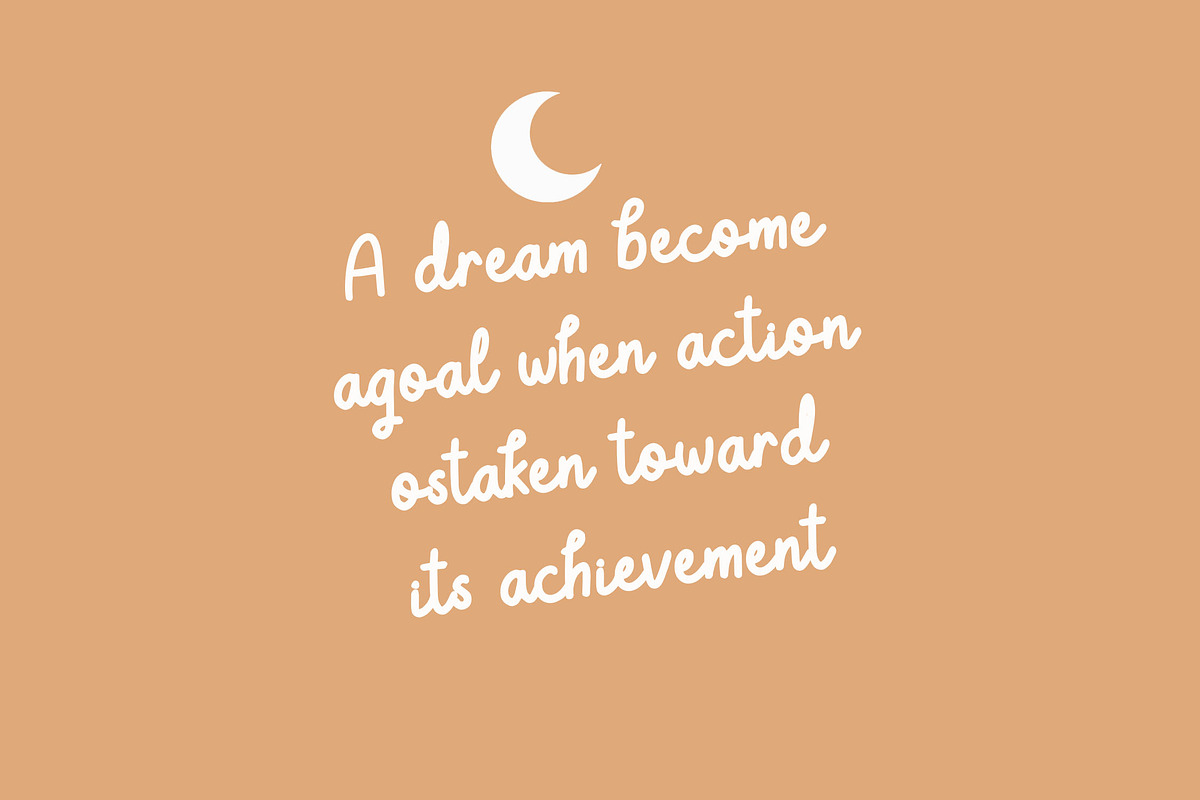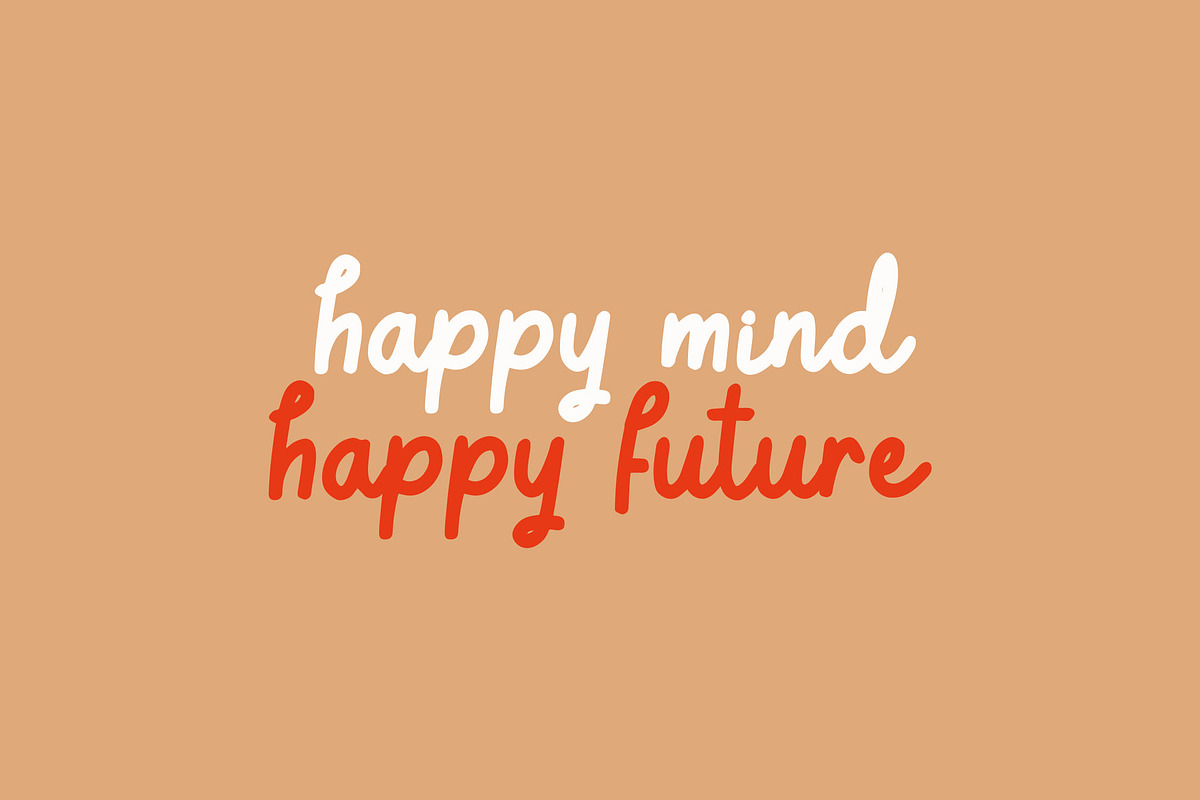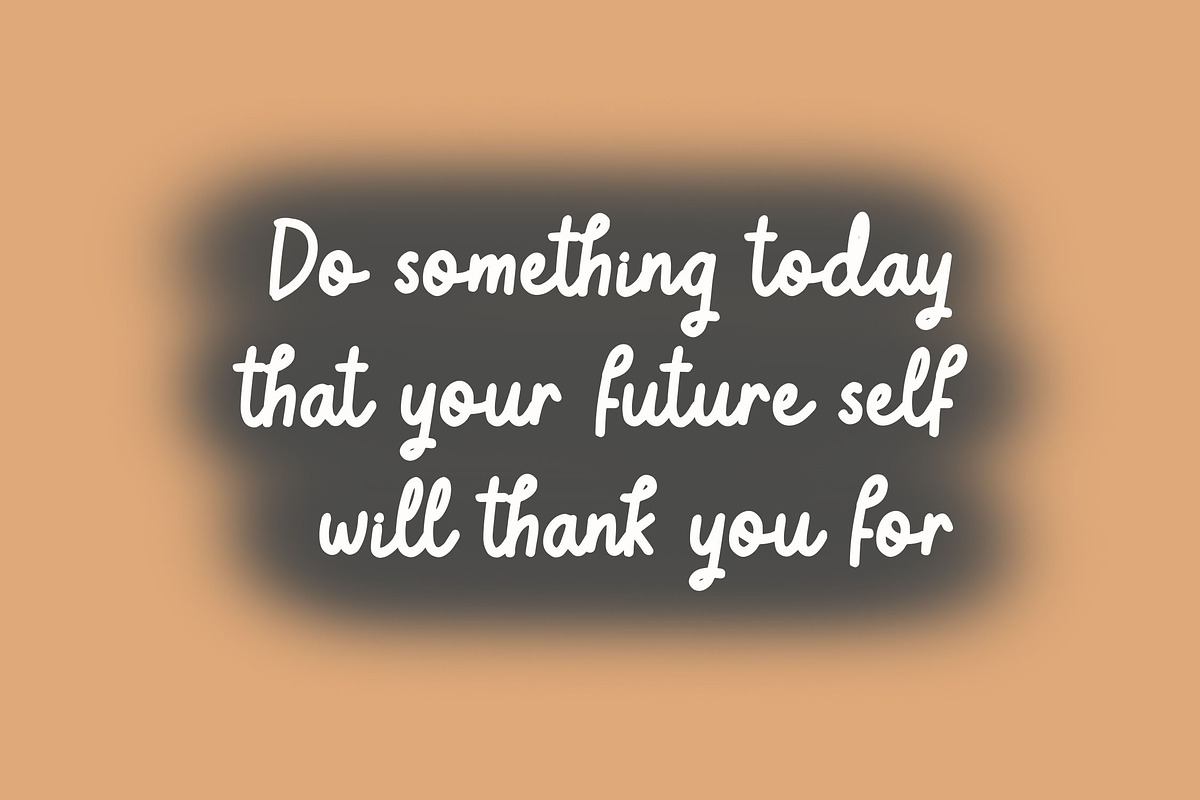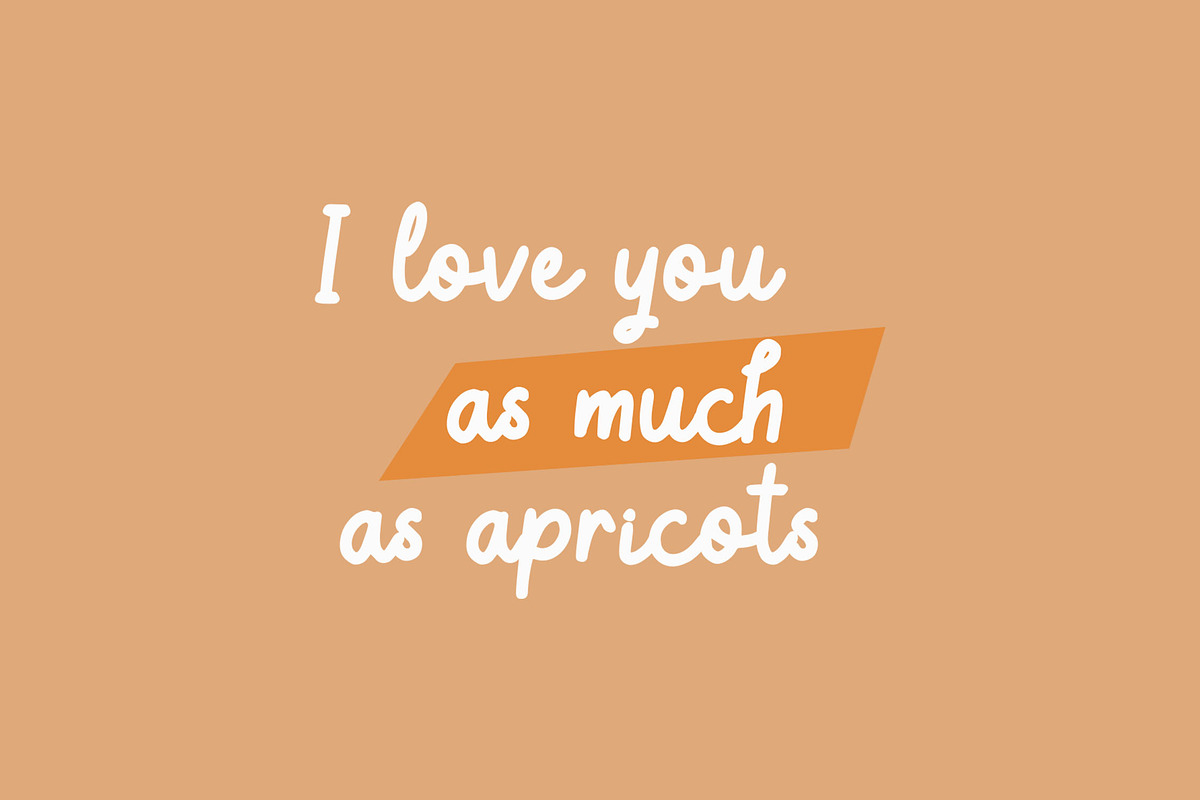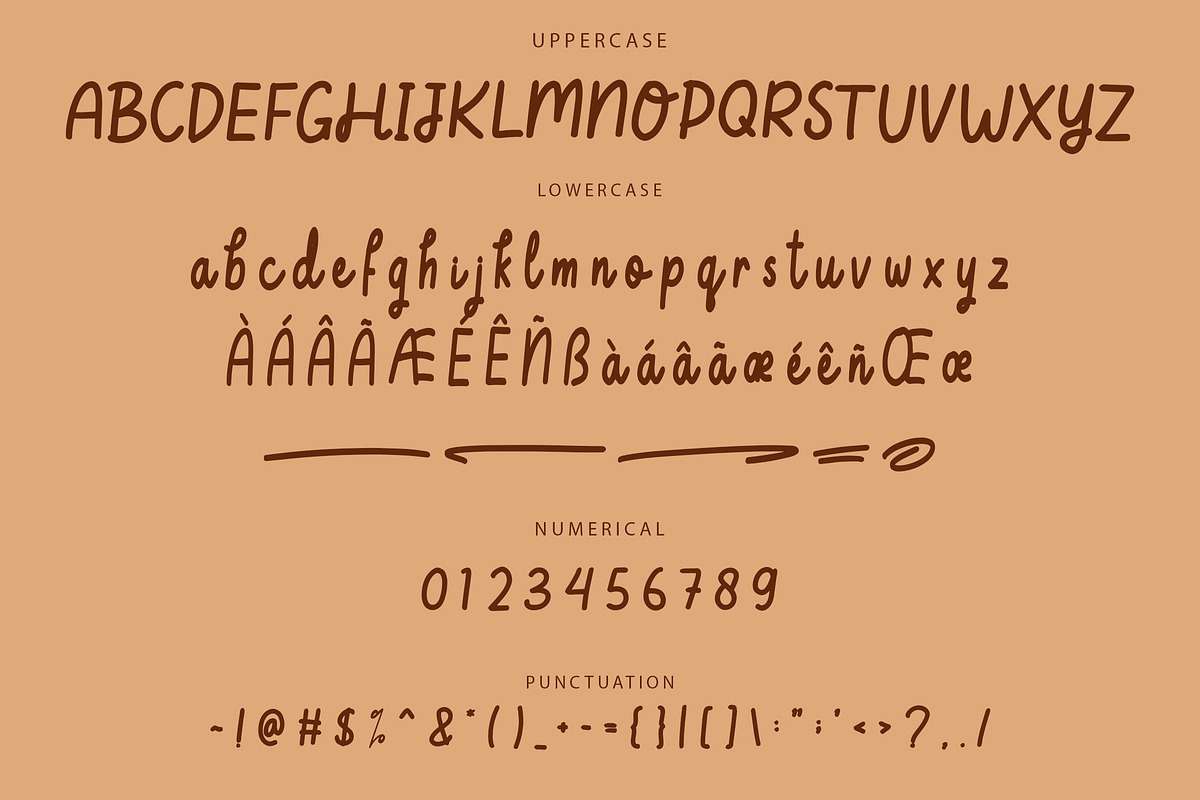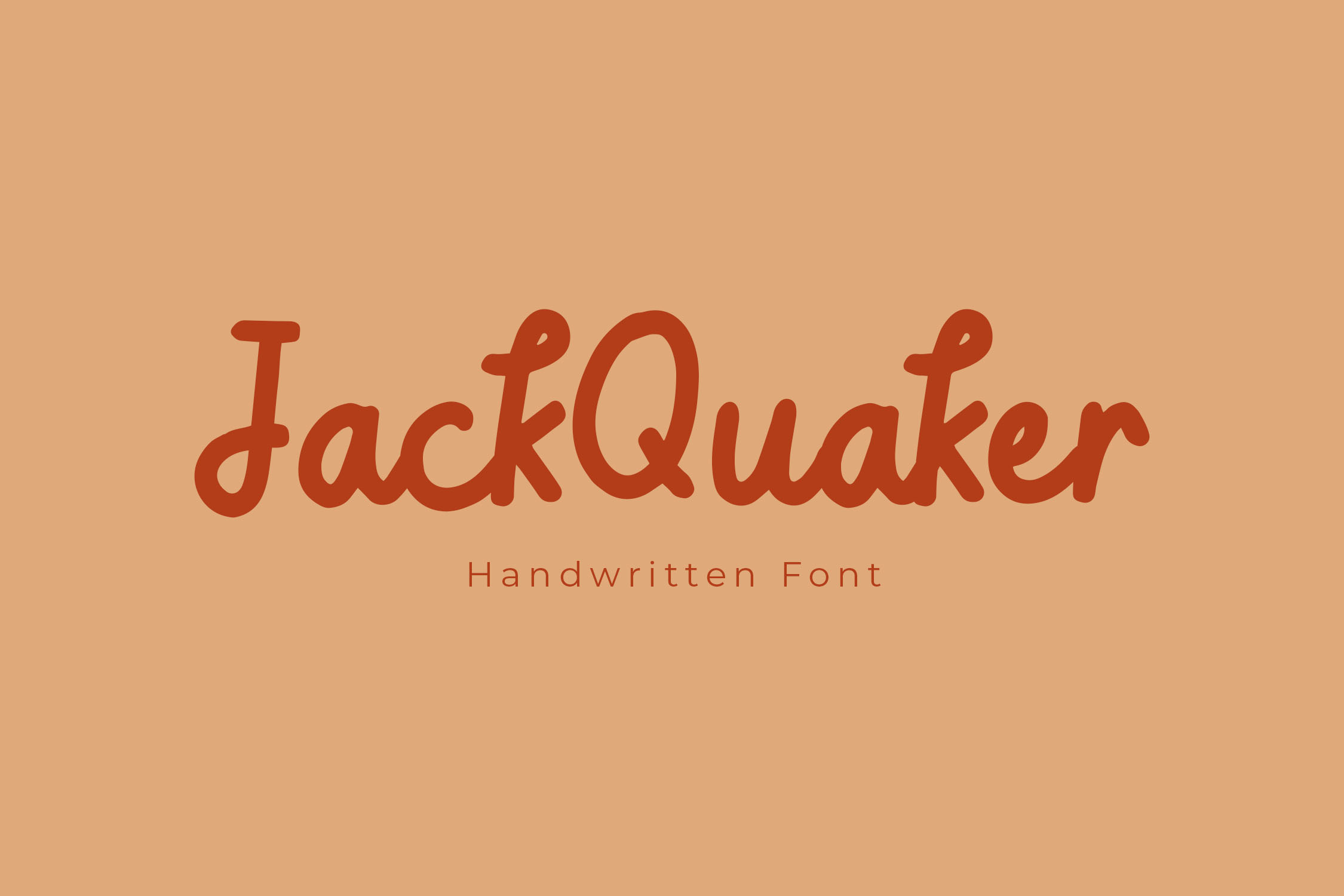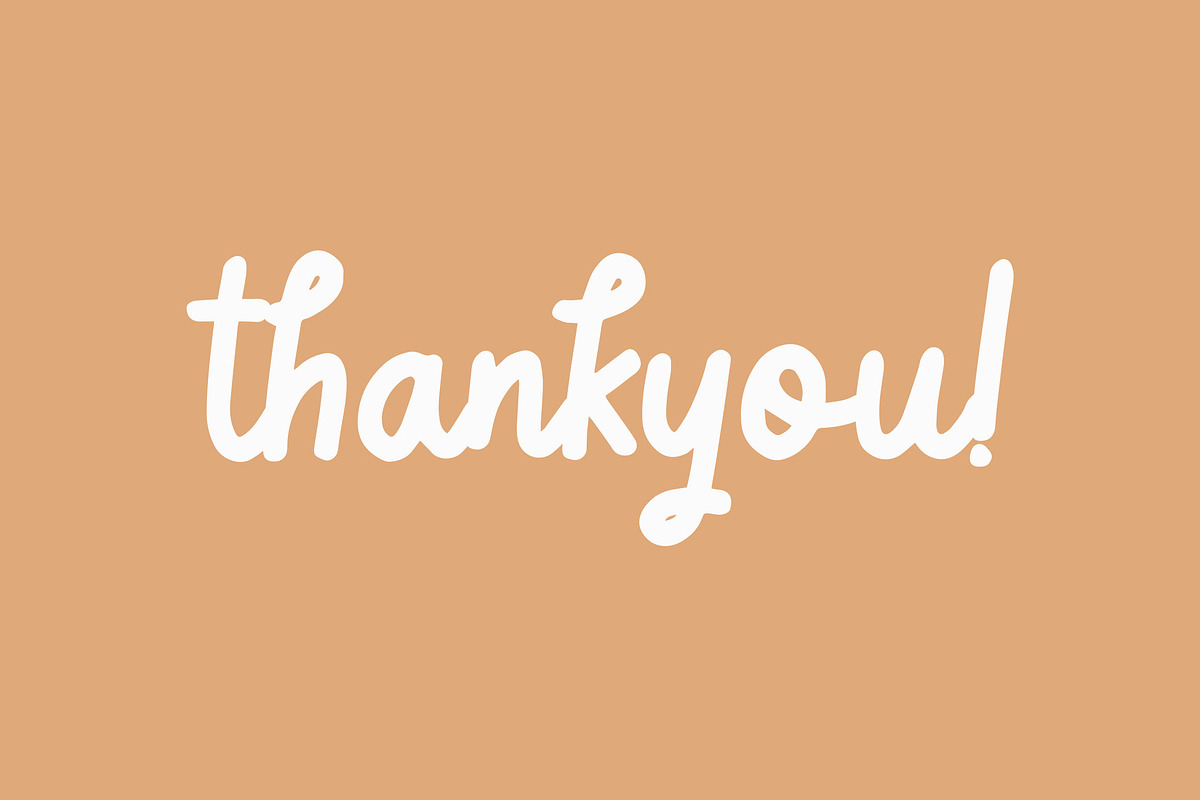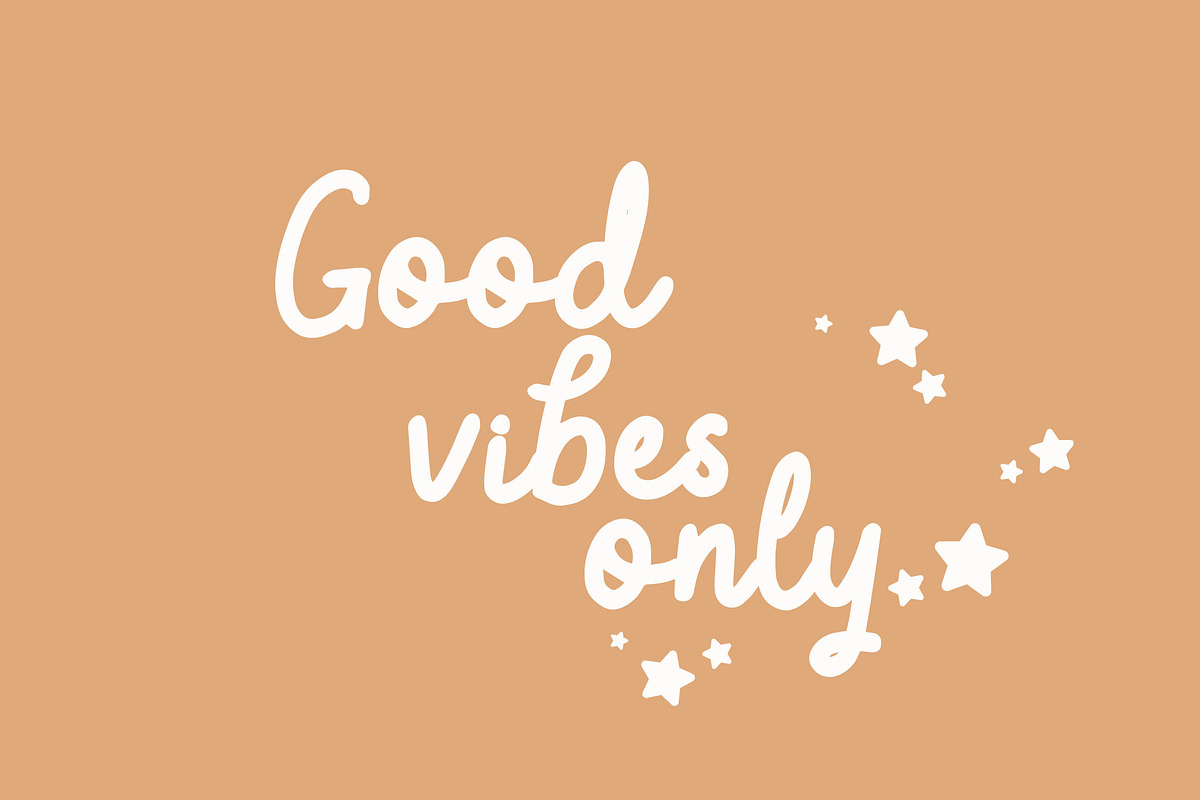
Jack Quaker Handwriting Font
Meet Jack Quaker, a playful handwriting font designed with fun, unique characters that bring a lively touch to any project. Whether you're looking to create eye-catching product graphics or elevate your designs, Jack Quaker adds personality and charm to your visuals.
- Ligatures for smooth, natural letter connections
- Stylistic Alternates for added design variety
- Swashes to decorate and enhance your text
- Multilingual Support for global versatility
Bring your designs to life with the playful energy of Jack Quaker!